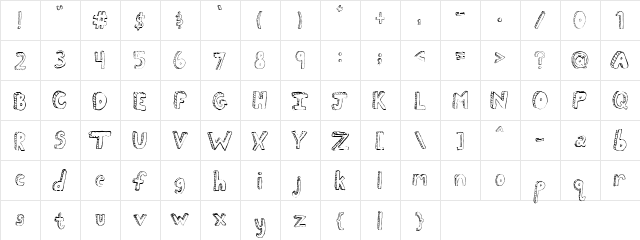
Fh_Scribble Regular Font Preview
Fh_Scribble Regular
Fh_Scribble Regular Font Details
| Foundry | Dan Meyer (Fictionalhead) |
| Designer | Dan Meyer (Fictionalhead) |
Design Context for Fh_Scribble Typeface
Fh_Scribble is a composed and adaptable typeface that performs quietly and consistently across a wide range of design contexts.